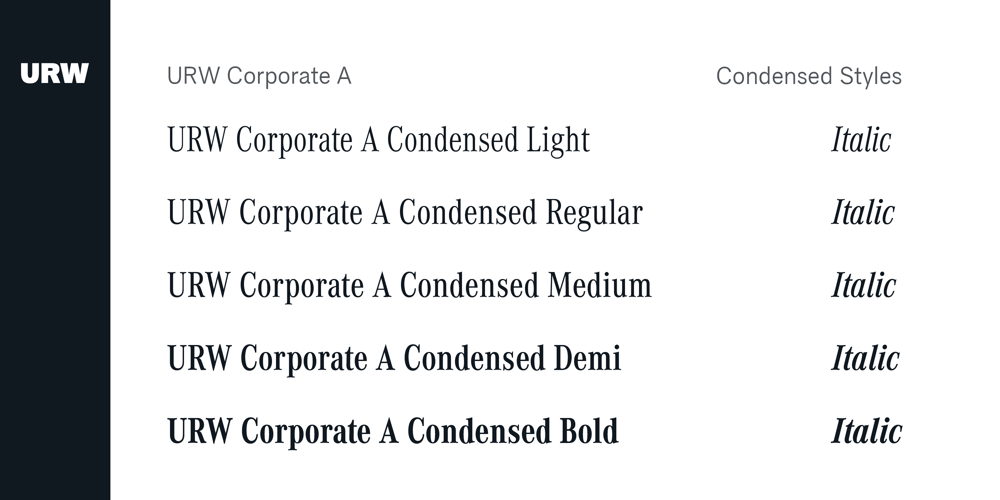
Corporate A Font Family was designed by Kurt Weidemann and published by URW Type Foundry. Corporate A contains 30 styles and family package options. The Corporate ASE typeface trilogy was designed by Prof. Kurt Weidemann, a well-known German designer and typographer, from 1985 until 1990. This superb trilogy consisting of the Corporate Antiqua, Corporte Sans Serif, and Corporate Egyptian is a design program of classical quality, perfectly in tune with each other. Weidemann says: My ASE trilogy, quite like triplets, is in perfect harmony and covers all needs of modern typography! Initially exclusively designed for DaimlerChrysler as a corporate font, the ASE trilogy may be now licensed and used without restriction. URW++ digitized the ASE for DaimlerChrysler and Prof. Weidemann and is the exclusive licencing agent for this outstanding and extremely popular typeface program.